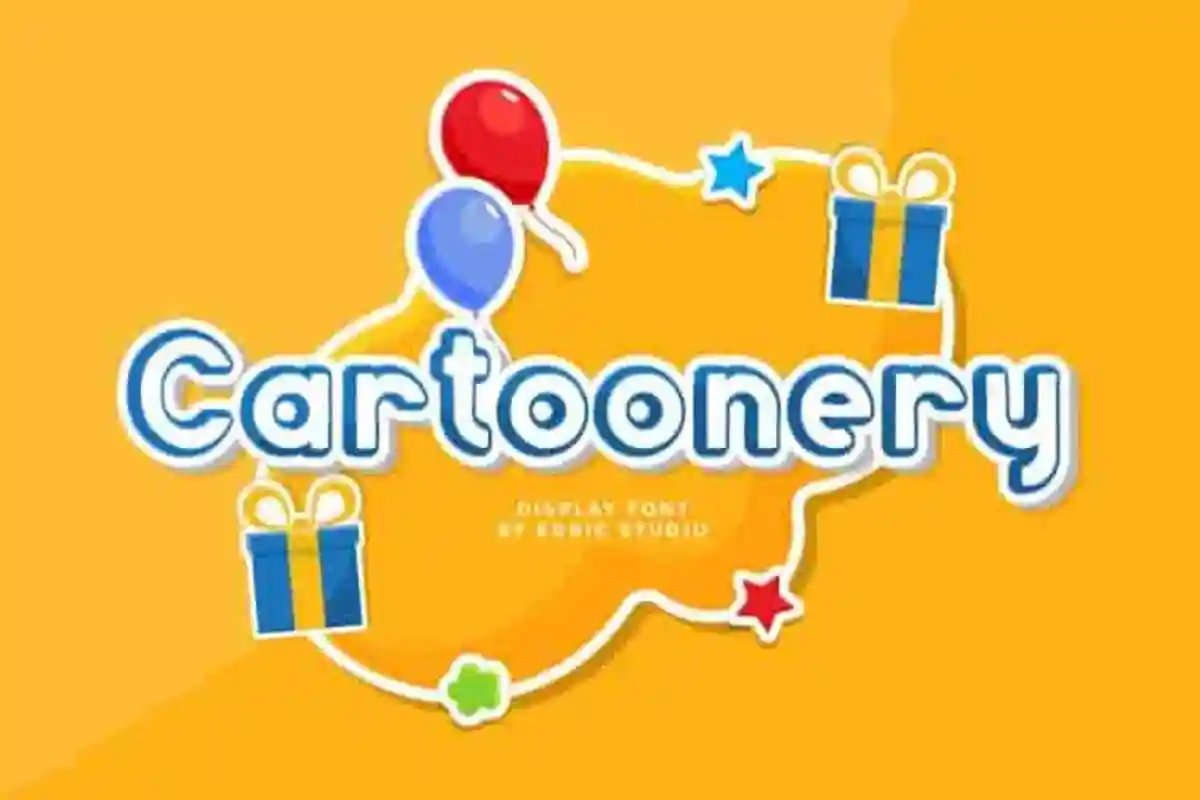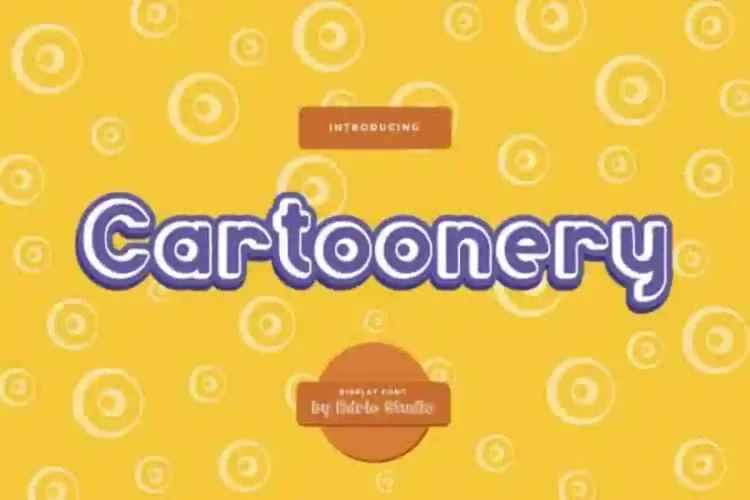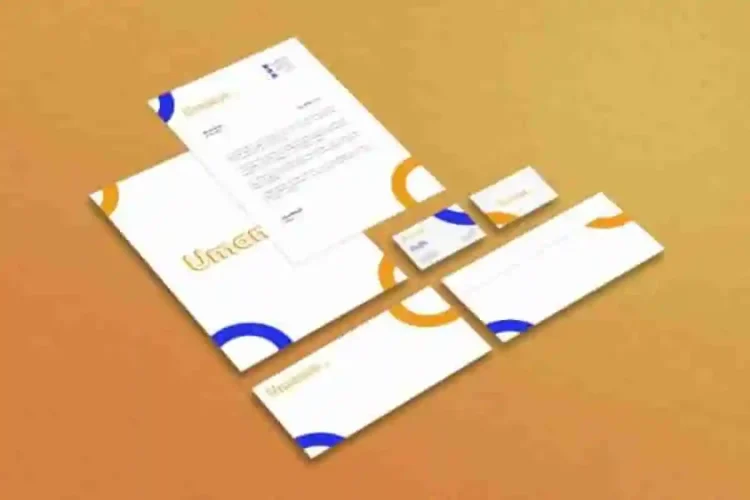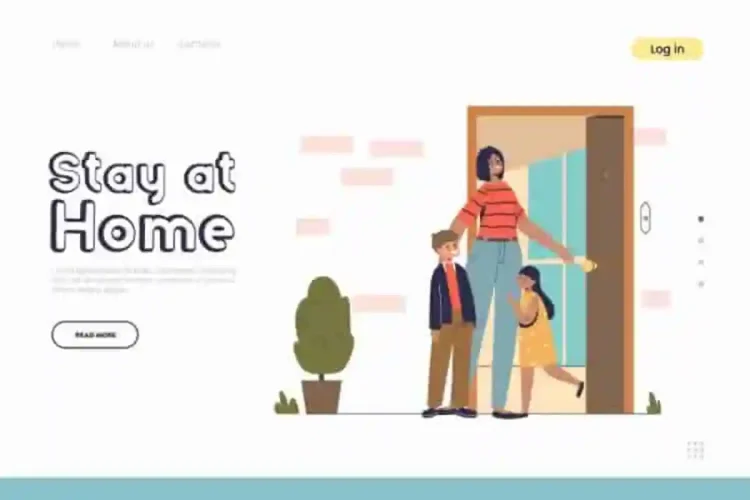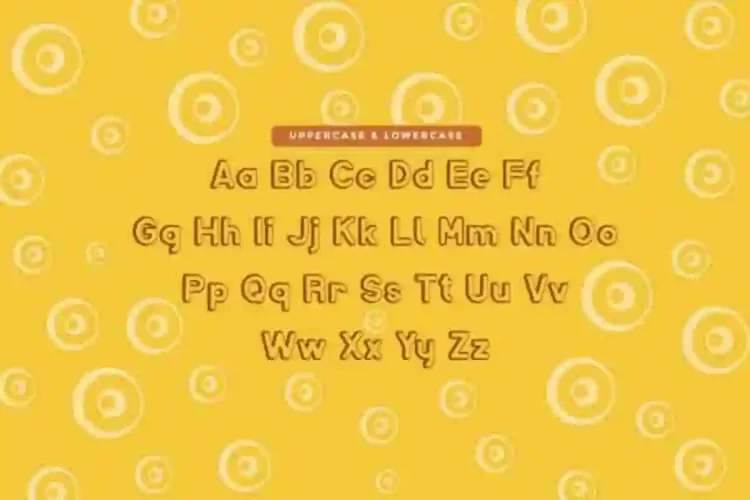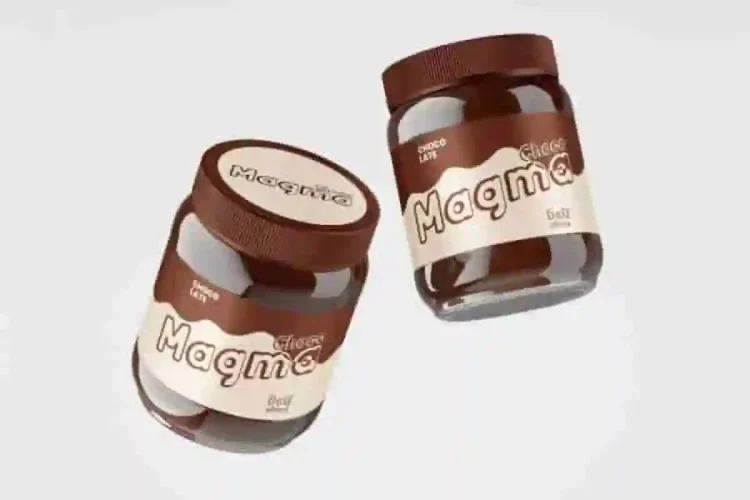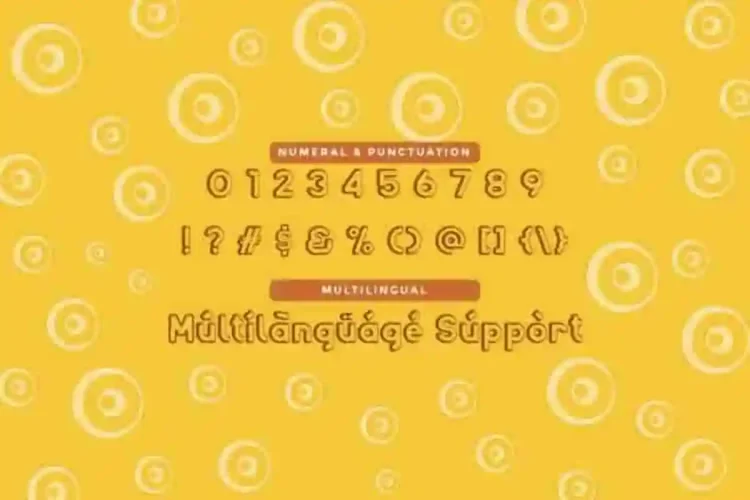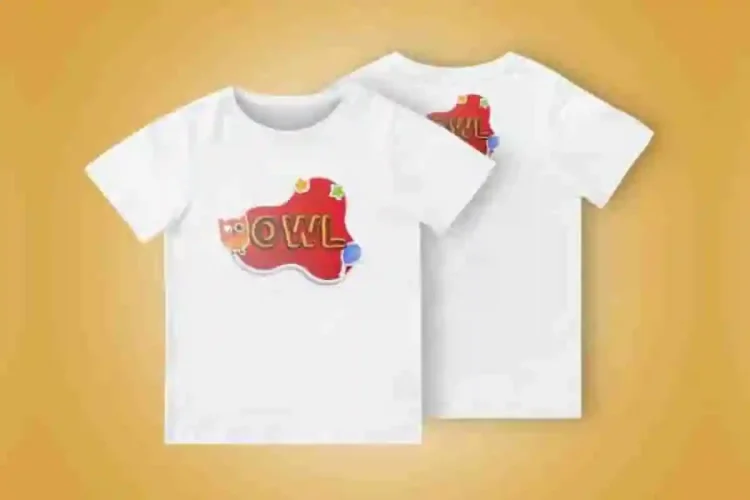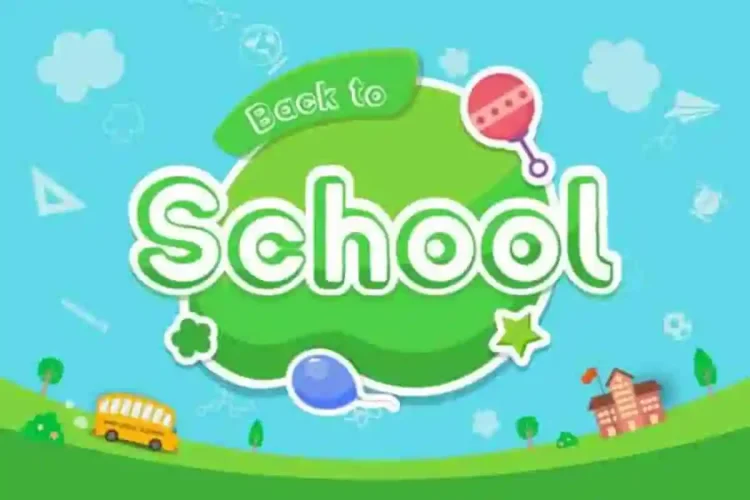
Cartoonery Comic Font is a unique Comic font with unique shape writing style effect. We made it uniquely with unique edges and special shapes. The font will looks good for many projects : game, children books, products, merchandising, cover, banner, tags, cards etc. It will be great for fun projects, kids theme, school, science project etc.